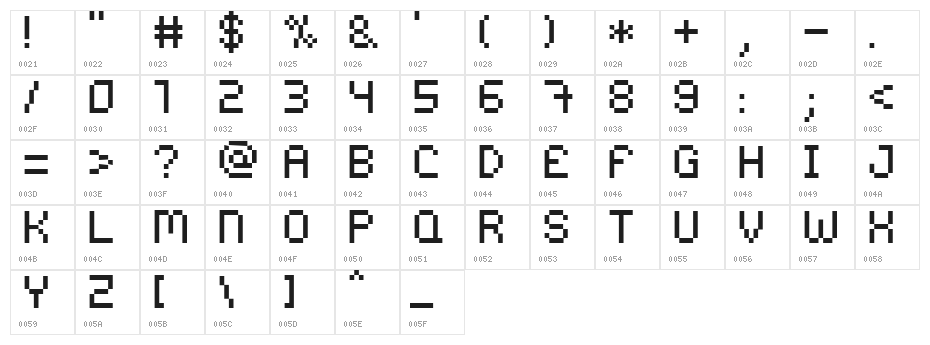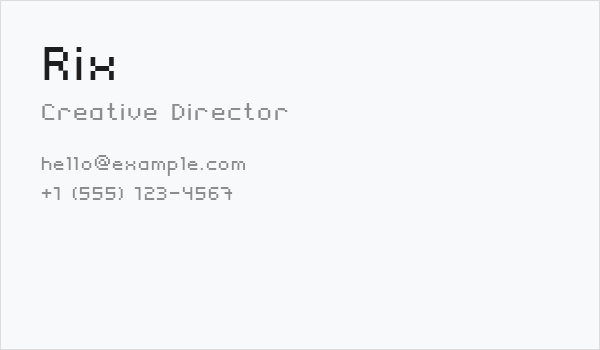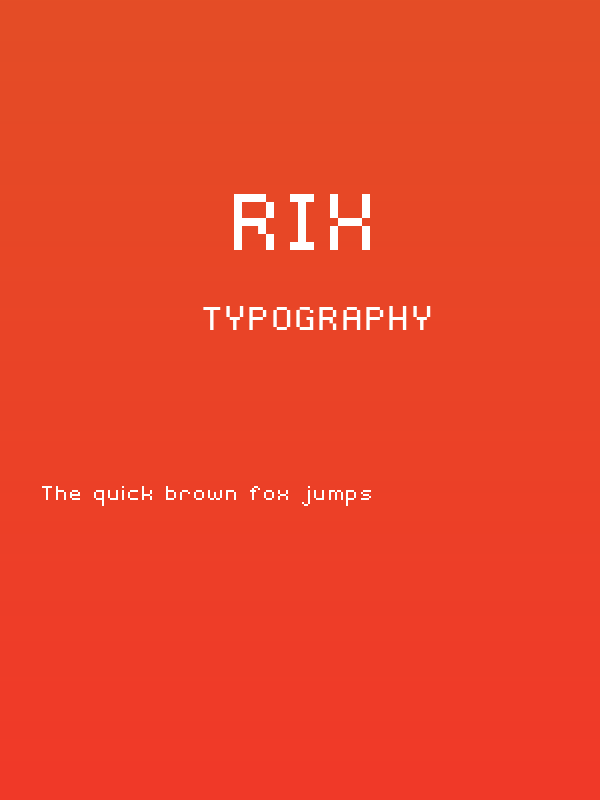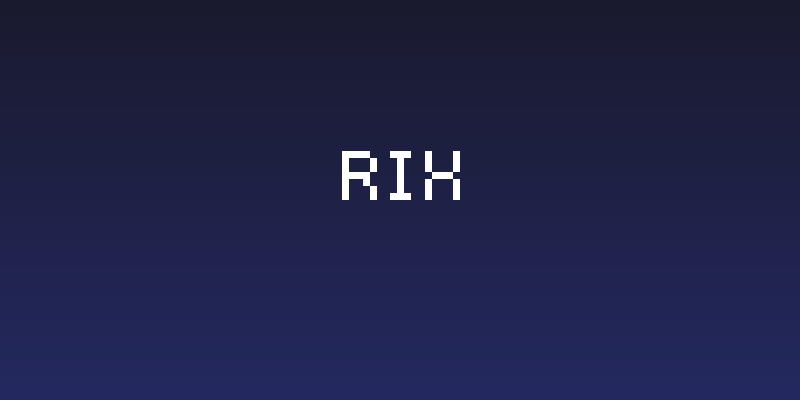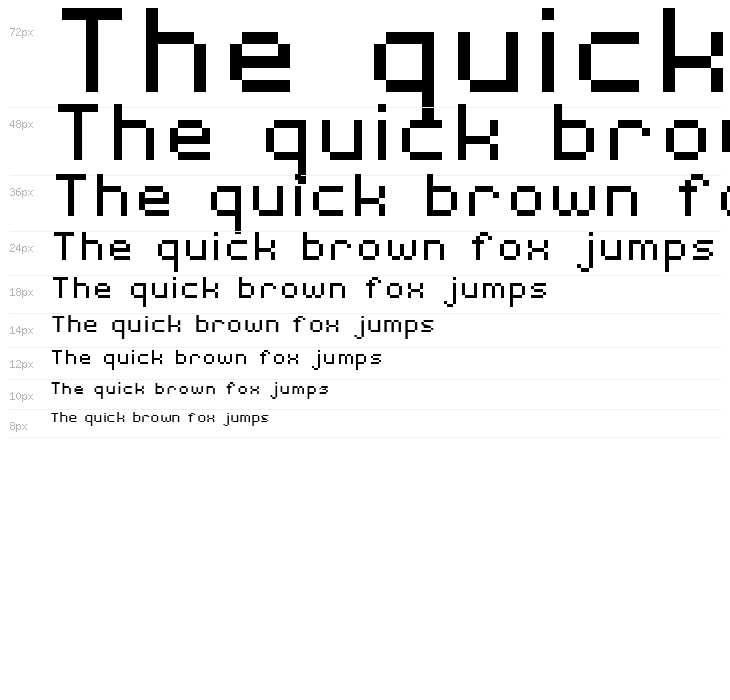
Rix Font
Rix Description
This font features a pixelated, grid-like structure reminiscent of early digital displays and retro video games. Each character is composed of square blocks, giving it a distinctly digital and geometric appearance. The uniformity in height and width across characters provides a cohesive look, while the sharp corners and straight lines emphasize its technical and mechanical nature. The font maintains a consistent weight throughout, ensuring readability even at smaller sizes. Its nostalgic aesthetic makes it ideal for projects that aim to evoke a sense of vintage technology or digital minimalism.
| Overall Style | Retro, Digital |
| Use Case | Headlines, Logos, Digital displays |
| Proposed Projects | Ideal for retro video game designs, tech-themed posters, digital art, and any project requiring a vintage digital aesthetic. |